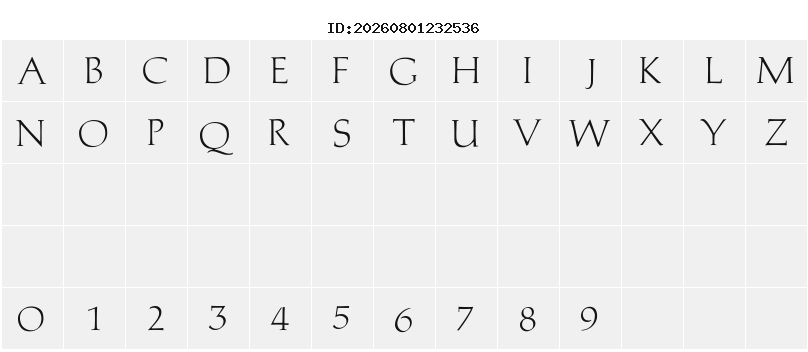
Medici Preview
• Font Name: Medici
• Full Font Name: Medici
About Medici.ttf
Medici.ttf is a modern, elegant sans-serif font designed for ultimate readability and visual harmony. Perfect for branding, headlines, web design, and print materials.